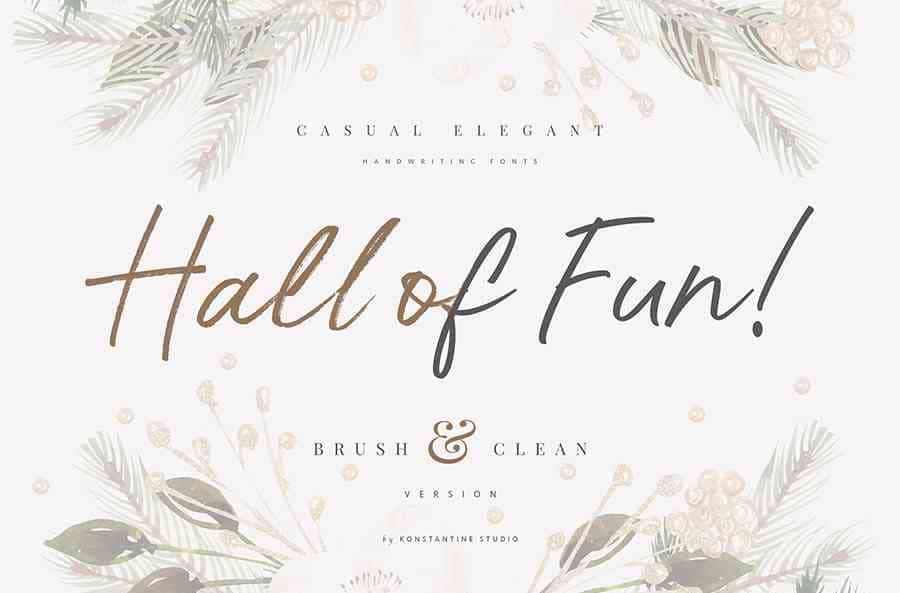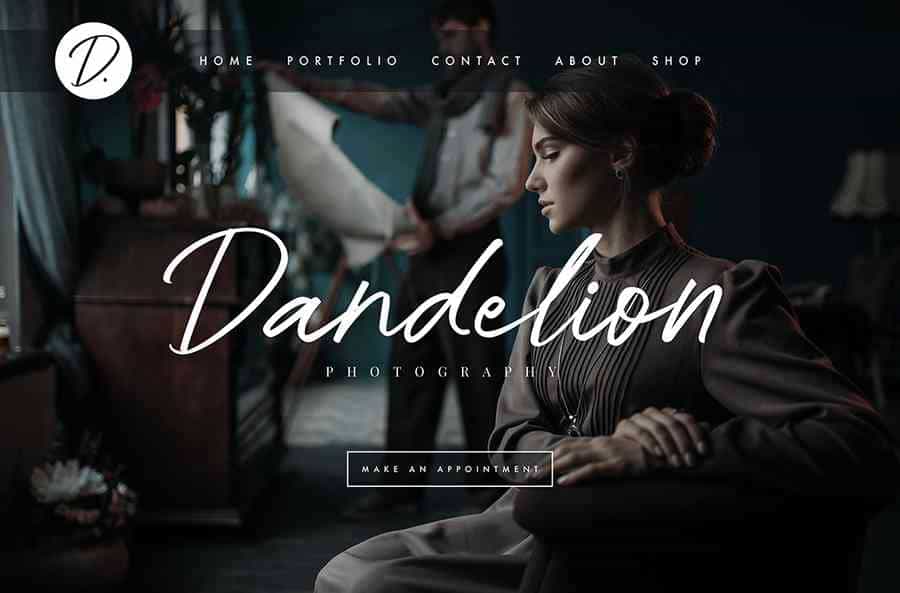
Hall Of Fun is a game that was developed and released through Konstantine Studio, and the game comes with brushes as well as clean versions depending on the user’s preference. Ideal for branding products, fashion accessories and logos, social media marketing and presentation, and also for vintage products – make your brand stand out with Hall of Fun right now!